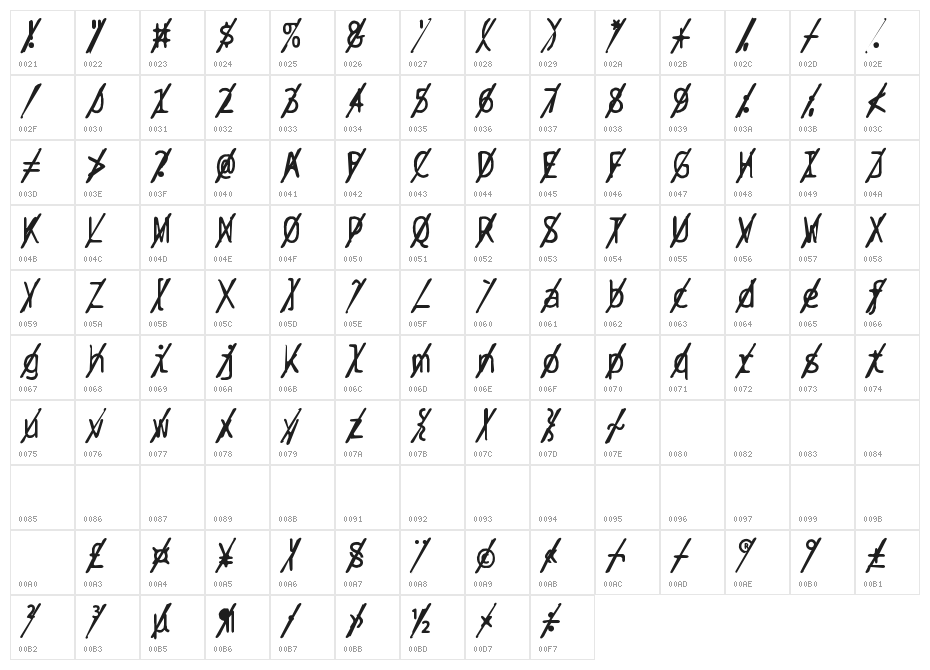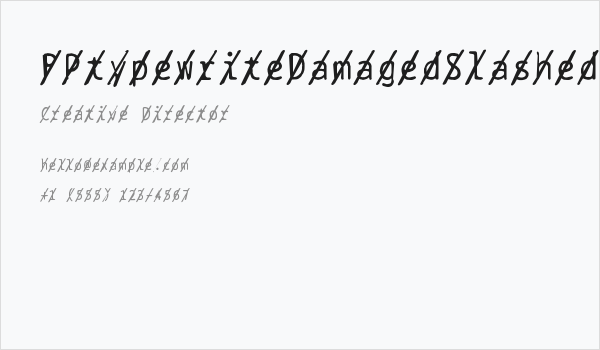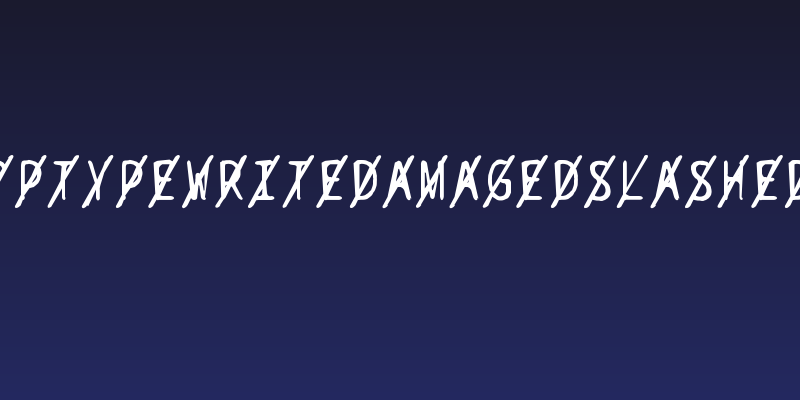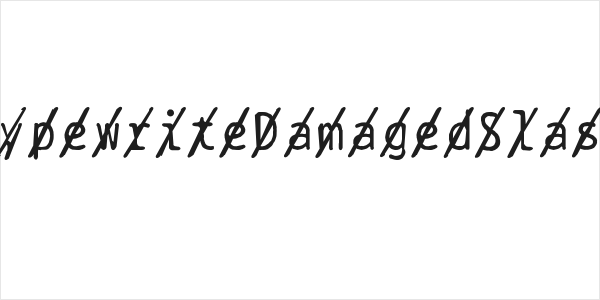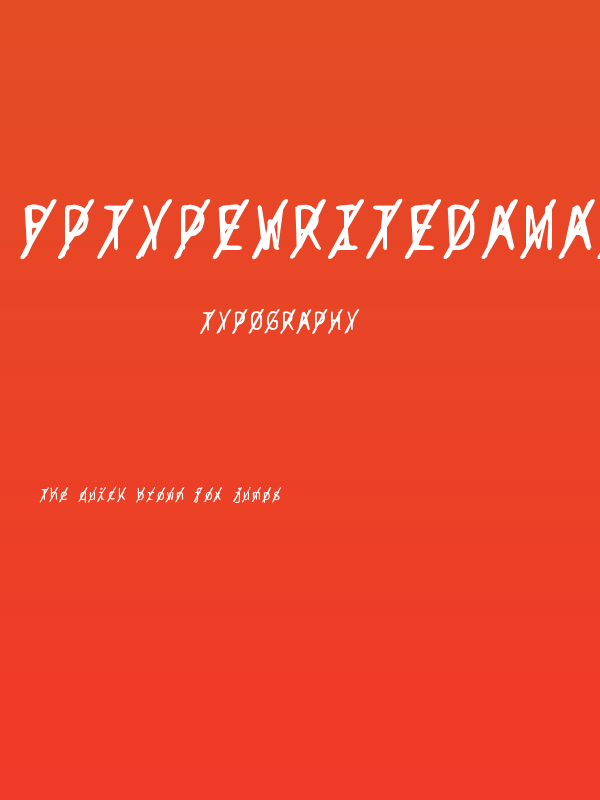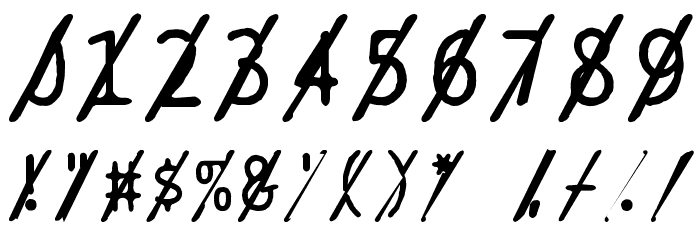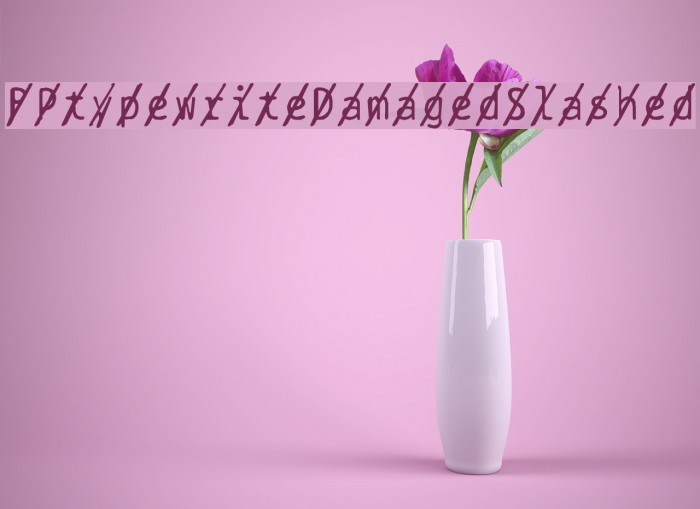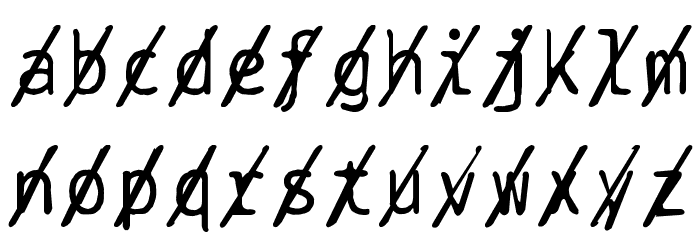
BPtypewriteDamagedSlashed Font
BPtypewriteDamagedSlashed Description
This font features a distinctive, slashed design that gives it a unique, edgy appearance. Each character is crossed with a diagonal line, creating a sense of movement and disruption. The letters are bold and slightly italicized, adding to the dynamic feel. The overall style is modern and unconventional, making it stand out. The characters are evenly spaced, ensuring readability despite the unusual design. This font is perfect for projects that require a bold statement or a touch of rebellion.
| Overall Style | Modern, Edgy |
| Proposed Projects | Ideal for album covers, posters, branding for edgy or alternative products, and any project needing a bold, standout typeface. |